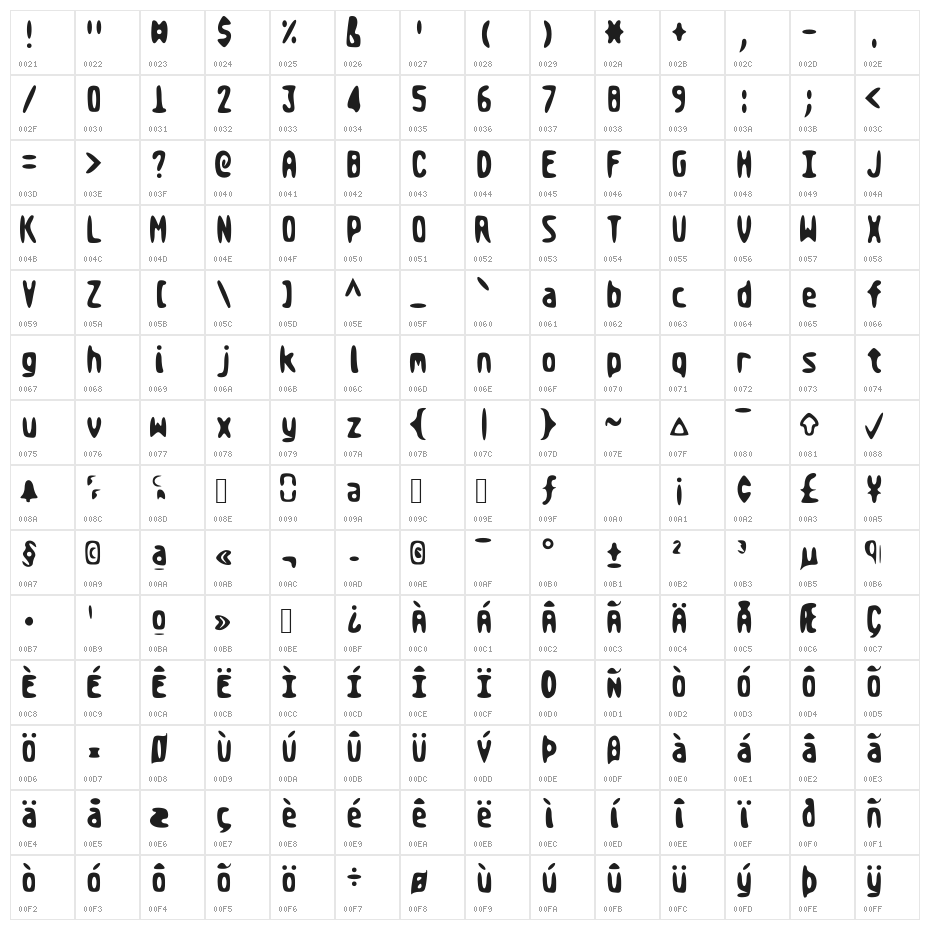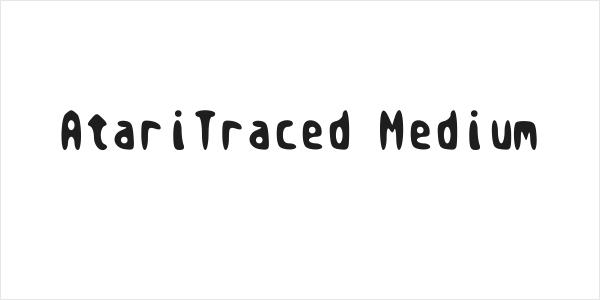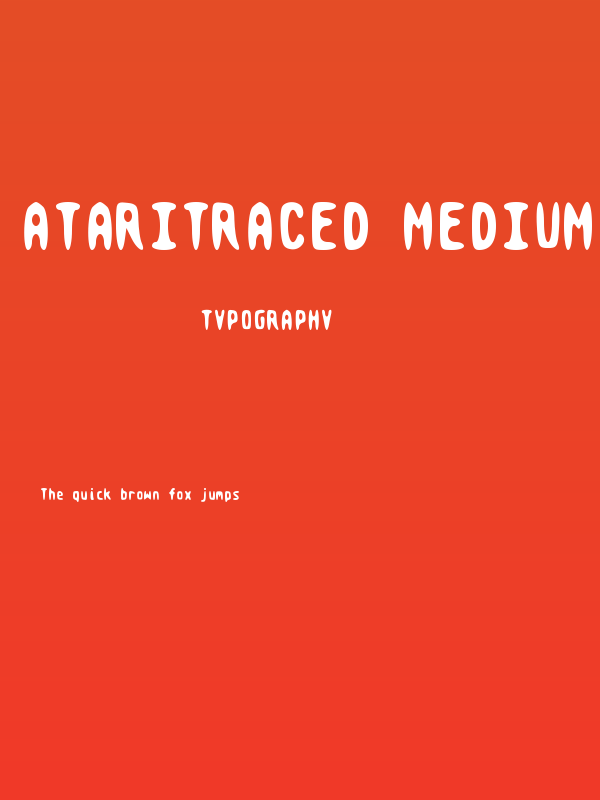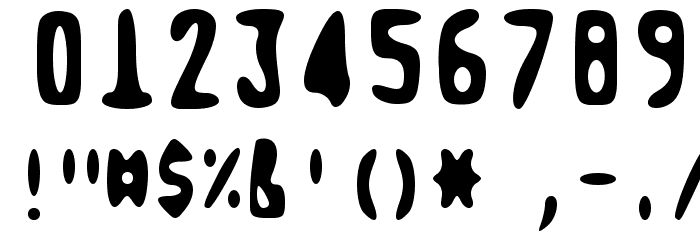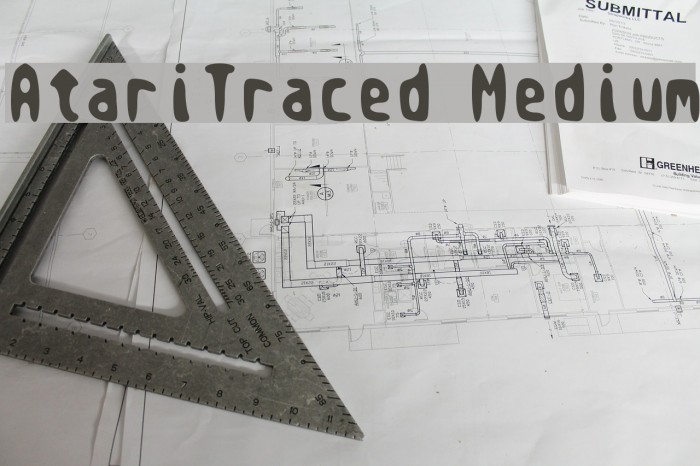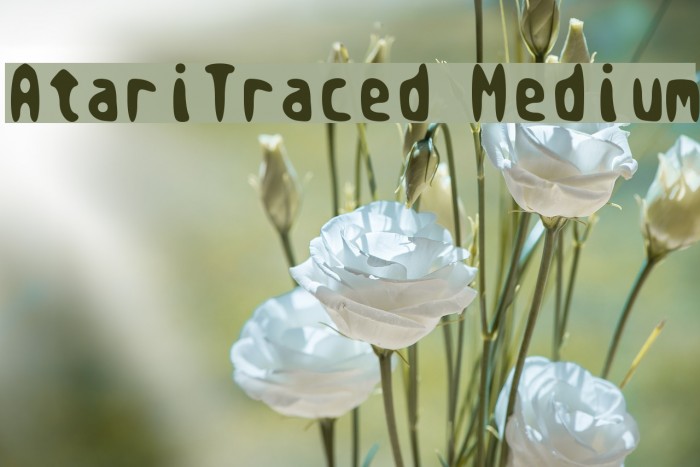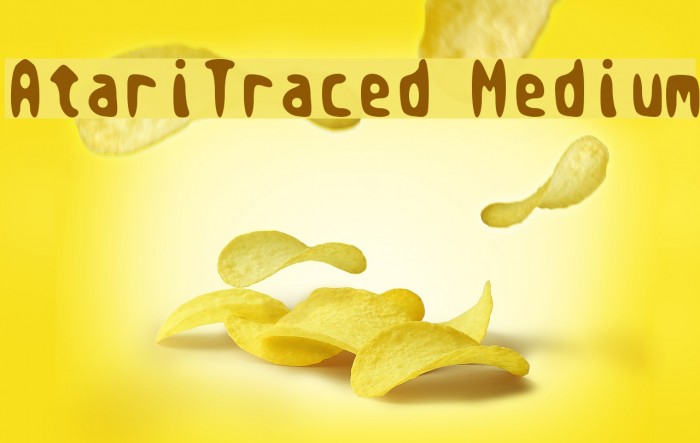
AtariTraced Medium Font
AtariTraced Medium Description
This font features a playful and bold design with rounded, organic shapes that give it a friendly and approachable appearance. The characters are thick and have a slightly irregular form, which adds to its whimsical charm. The uppercase and lowercase letters maintain a consistent style, with a notable emphasis on curves and smooth edges. Numbers and special characters follow the same design principles, ensuring a cohesive look across all elements. This font's unique style makes it stand out, making it ideal for projects that require a fun and engaging visual impact.
| Proposed Projects | Ideal for children's books, playful branding, posters, and creative projects that require a fun and engaging aesthetic. |